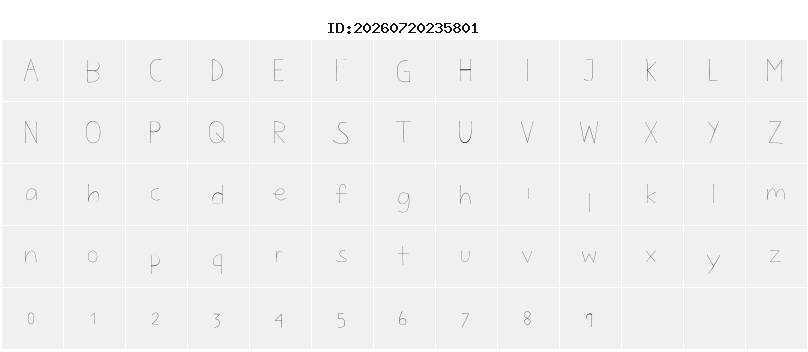
• Font Name: FlowProu
• Designer: Mar’a JosŽ Orellana Garc’a
About FlowProu.ttf
FlowProu.ttf is a modern, elegant sans-serif font designed for ultimate readability and visual harmony. Perfect for branding, headlines, web design, and print materials.